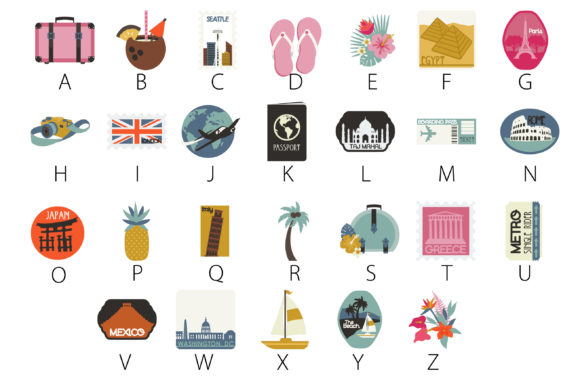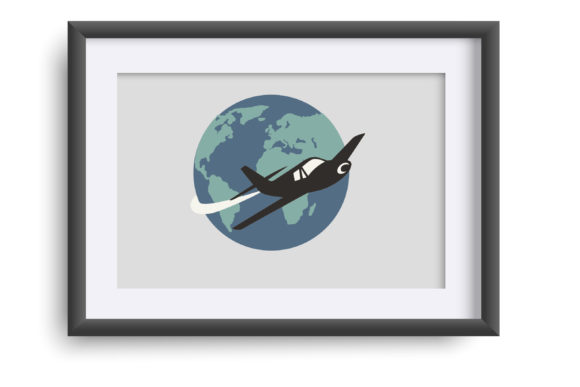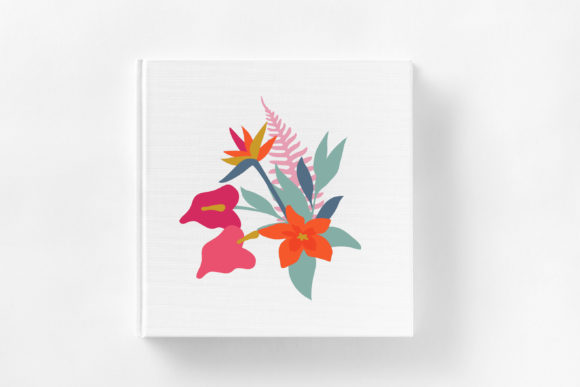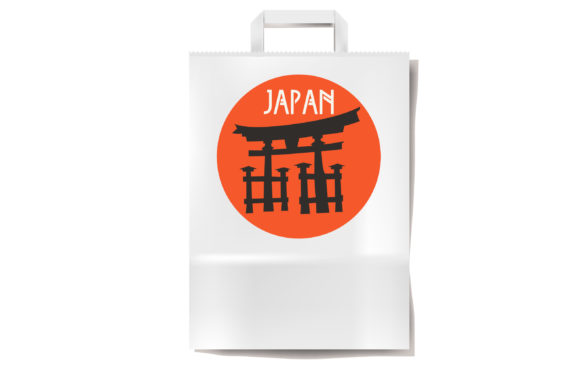
Wayfarer Font
Wayfarer is a versatile and practical color font that can bring a touch of creativity and style to your designs. With its unique and captivating letterforms, Wayfarer is perfect for adding a cool and distinctive element to your favorite creations.
Whether you’re working on branding projects, logo designs, social media graphics, or any other creative endeavor, Wayfarer can be confidently incorporated into your workflow. Its adaptability ensures that it can seamlessly blend with various design styles and themes, making it a versatile choice for any project.
The color elements in Wayfarer add an extra dimension to your designs, allowing you to create eye-catching and visually appealing compositions. The combination of unique letterforms and vibrant colors creates a truly mesmerizing outcome, leaving a lasting impression on your audience.
So go ahead and explore the possibilities with Wayfarer. Add it to your favorite creations and let yourself be amazed by the stunning results it generates. Its cool, useful, and adaptable nature will surely elevate your designs and bring them to life.